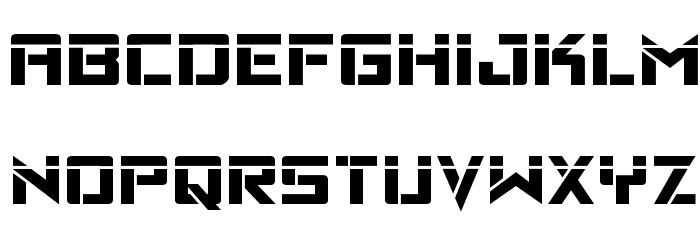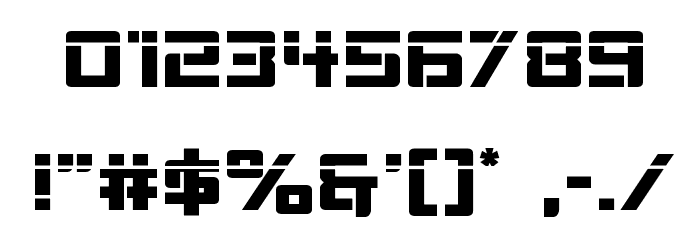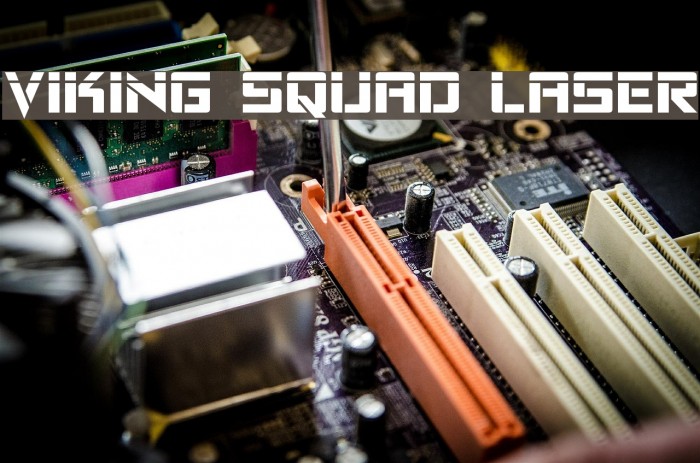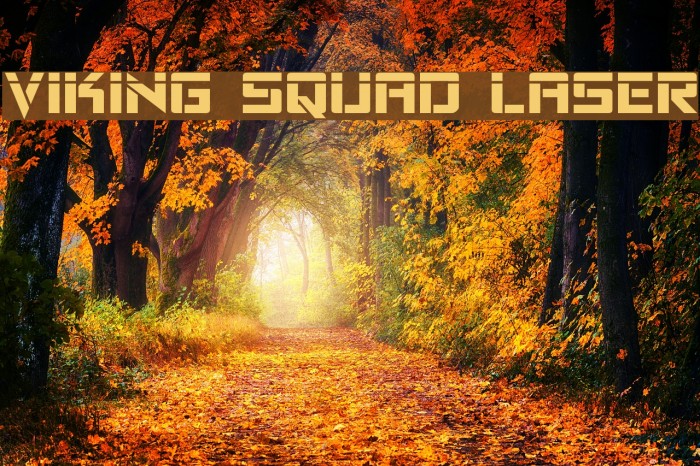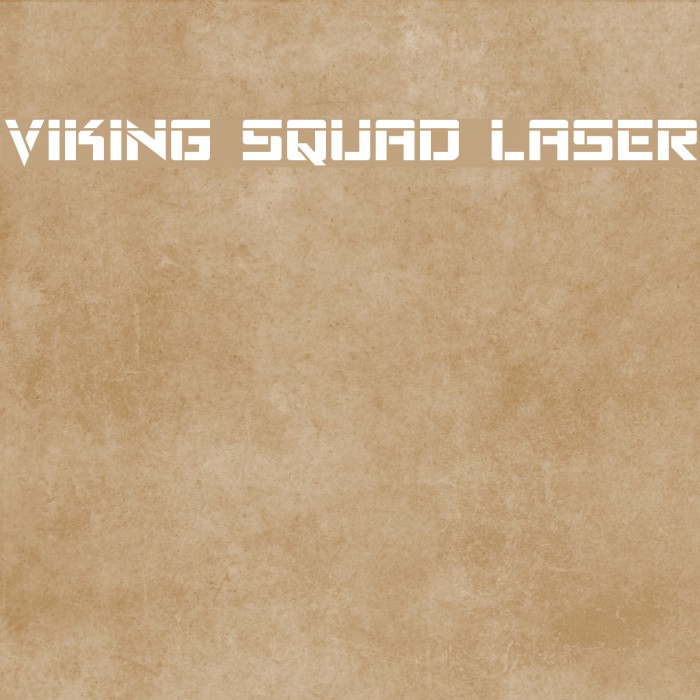
Viking Squad Laser Font
This font features a bold, geometric design with sharp angles and a futuristic aesthetic. The characters are constructed with a blocky, stencil-like appearance, giving them a strong, industrial feel. The uppercase letters are particularly striking, with unique cutouts and angular forms that create a sense of movement and energy. The numbers and special characters maintain this bold style, ensuring consistency across all glyphs. This font is ideal for projects that require a modern, edgy look, such as video game titles, tech branding, or sci-fi themed designs.
A bold, geometric font with a futuristic, industrial style.
- Proposed Projects: Ideal for video game titles, tech branding, sci-fi themed designs, and modern posters.
- Overall Style: Futuristic, Industrial